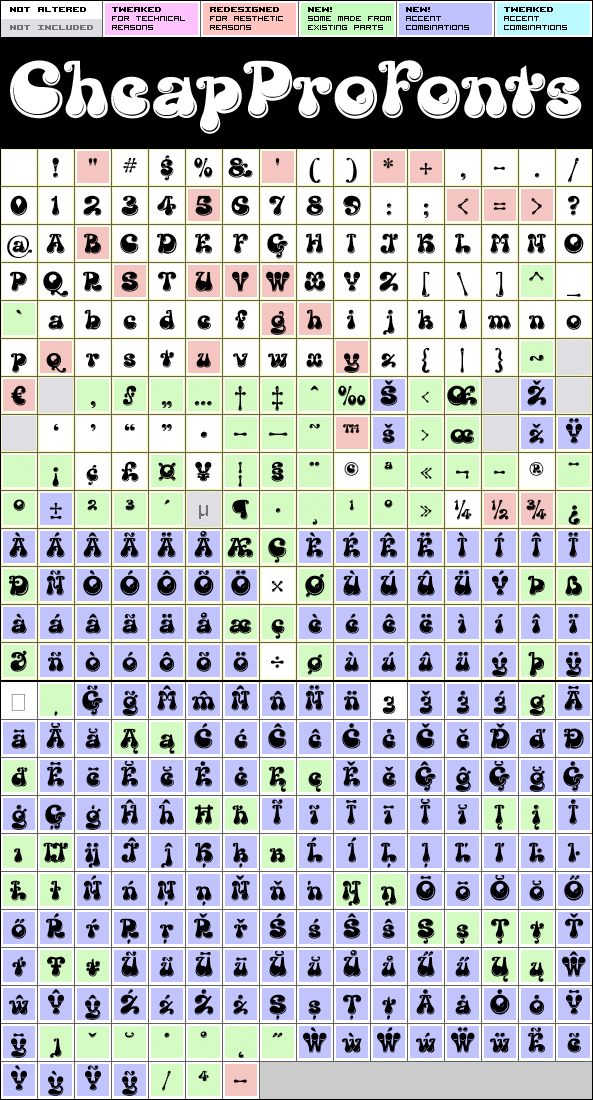
Kingthings Lickorishe Pro
Kingthings Lickorishe Pro by Kevin King
Kevin King
383 glyphs!
(111 in original)
742 class kernpairs
= 13843 kerning pairs
(100 in original)
Kevin King says: "When I started this font it was called Pestle... It didn't run - it didn't even walk. At some point I thought, Hmm! Looks a bit like Liquorice! And now... Voila! I remember being able to buy about a yard of Liquorice rolled round a central comfit - how fab! Tuppence worth of sticky afternoon! You could also buy bundles of Liquorice root - which looked like black twigs with bright yellow wood - they left my teeth full of black twiggy bits... The past is a strange Lady - Bless her!
This was almost Kingthings Leechy... just another one of my bulbous shiny things - I have always liked letter-shapes with 'bottom', probably a 70's thing, as many a seventies thing did indeed possess it - including the fabulous Chaka Kahn... Oooh, Diva!"
Kingthings Lickorishe Pro is a professionally reworked font that contains an extended character set for setting text in 65 languages requiring more than the basic A-Z!